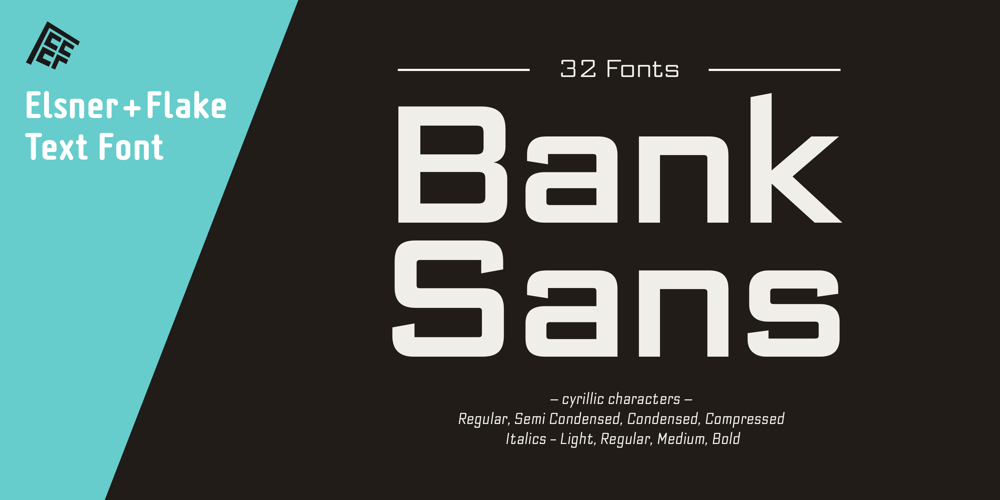
Bank Sans EF Font Family was designed by Günther Flake, Morris Fuller Benton and published by Elsner+Flake. Bank Sans EF contains 64 styles and family package options. With its extended complement, this comprehensive redesign of Bank Gothic by Elsner+Flake offers a wide spectrum for usage. After 80 years, the typeface Bank Gothic, designed by Morris Fuller Benton in 1930, is still as desirable for all areas of graphic design as it has ever been. Its usage spans the design of headlines to exterior design. Game manufacturers adopt this spry typeface, so reminiscent of the Bauhaus and its geometric forms, as often as do architects and web designers. The creative path of the Bank Gothic from hot metal type via phototypesetting to digital variations created by desktop designers has by now taken on great breadth. The number of cuts has increased. The original Roman weight has been augmented by Oblique and Italic variants. The original versions came with just a complement of Small Caps. Now, they are, however, enlarged by often quite individualized lower case letters. In order to do justice to the form changes and in order to differentiate between the various versions, the Bank Gothic, since 2007 a US trademark of the Grosse Pointe Group (Trademark FontHaus, USA), is nowadays available under a variety of different names. Some of these variations remain close to the original concept, others strive for greater individualism in their designs. The typeface family which was cut by the American typefoundry ATF (American Type Founders) in the early 1930’s consisted of a normal and a narrow type family, each one in the weights Light, Medium and Bold. In addition to its basic ornamental structure which has its origin in square or rectangular geometric forms, there is another unique feature of the Bank Gothic: the normally round upper case letters such as B, C, G, O, P, Q, R and U are also rectangular. The one exception is the upper case letter D, which remains round, most likely for legibility reasons (there is the danger of mistaking it for the letter O.) Because of the huge success of this type design, which follows the design principles of the more square and the more contemporary adaption of the already existing Copperplate, it was soon adopted by all of the major type and typesetting manufacturers. Thus, the Bank Gothic appeared at Linotype; as Commerce Gothic it was brought out by Ludlow; and as Deluxe Gothic on Intertype typesetters. Among others, it was also available from Monotype and sold under the name Stationer’s Gothic. In 1936, Linotype introduced 6pt and 12pt weights of the condensed version as Card Gothic. Lateron, Linotype came out with Bank Gothic Medium Condensed in larger sizes and a more narrow set width and named it Poster Gothic. With the advent of photoypesetters and CRT technologies, the Bank Gothic experienced an even wider acceptance. The first digital versions, designed according to present computing technologies, was created by Bitstream whose PostScript fonts in Regular and Medium weights have been available through FontShop since 1991. These were followed by digital redesigns by FontHaus, USA, and, in 1996, by Elsner+Flake who were also the first company to add cursive cuts. In 2009, they extended the family to 16 weights in both Roman and Oblique designs. In addition, they created the long-awaited Cyrillic complement. In 2010, Elsner+Flake completed the set with lowercase letters and small caps. Since its redesign the type family has been available from Elsner+Flake under the name Bank Sans®. The character set of the Bank Sans® Caps and the Bank Sans® covers almost all latin-based languages (Europe Plus) as well as the Cyrillic character set MAC OS Cyrillic and MS Windows 1251. Both families are available in Normal, Condensed and Compressed weights in 4 stroke widths each (Light, Regular, Medium and Bold). The basic stroke widths of the different weights have been kept even which allows the mixing of, for instance, normal upper case letters and the more narrow small caps. This gives the family an even wider and more interactive range of use. There are, furthermore, extensive sets of numerals which can be accessed via OpenType-Features. The Bank Sans® type family, as opposed to the Bank Sans® Caps family, contains, instead of the optically reduced upper case letters, newly designed lower case letters and the matching small caps. Bank Sans® fonts are available in the formats OpenType and TrueType.